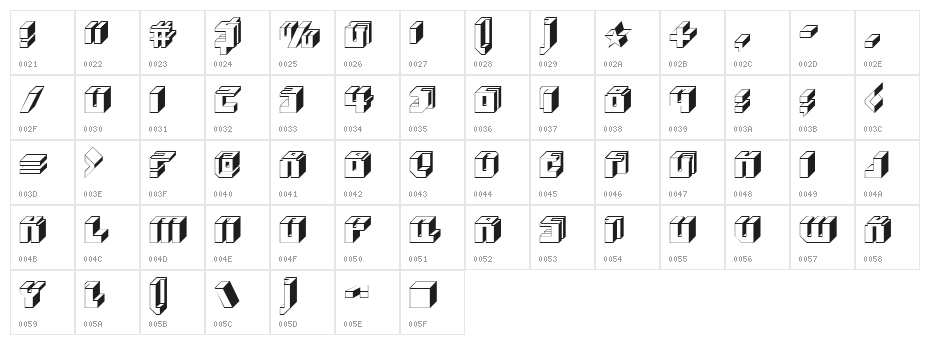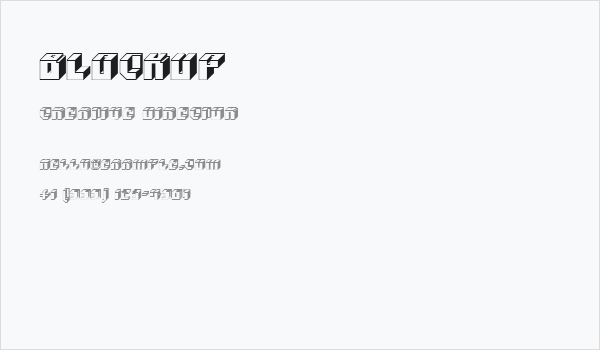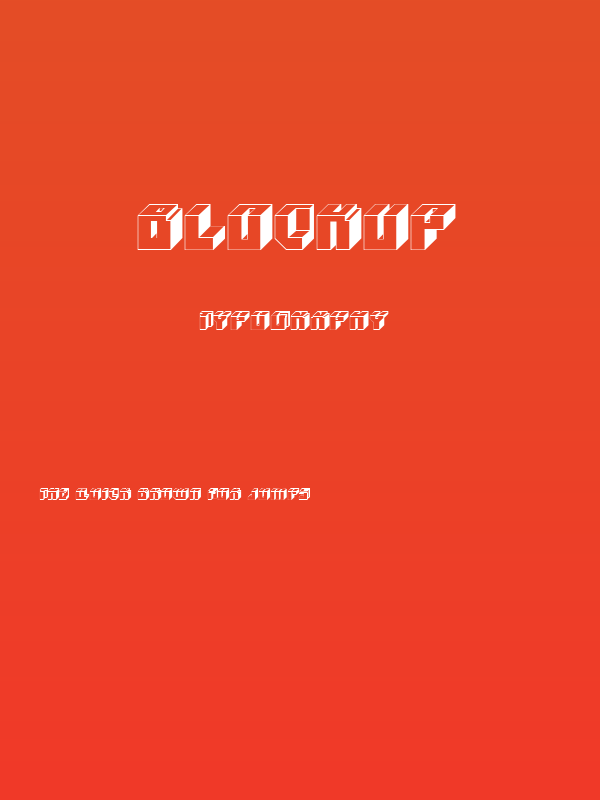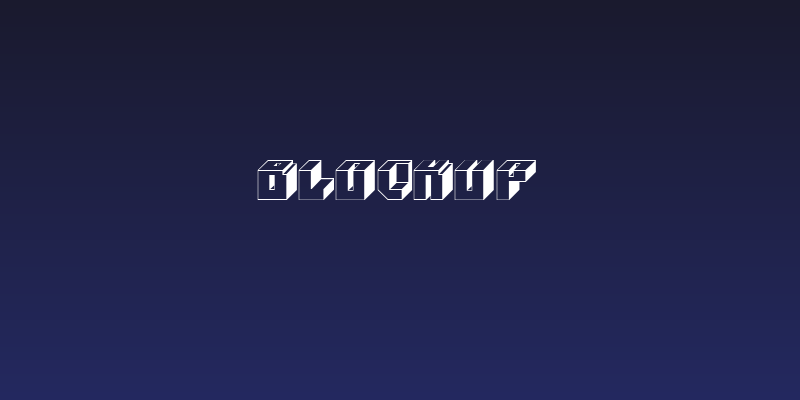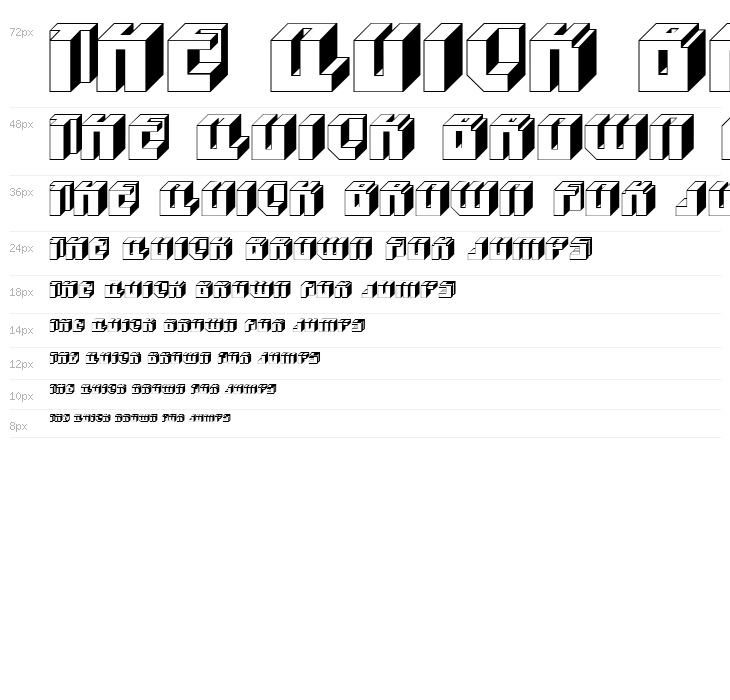
BlockUp Font
BlockUp Description
This font features a bold, three-dimensional block style that gives each character a strong, impactful presence. The letters are designed with a shadow effect, creating a sense of depth and solidity. The geometric shapes are consistent throughout, with sharp angles and clean lines that contribute to a modern and industrial aesthetic. The uppercase and lowercase letters maintain a uniform style, while the numbers and special characters are crafted to match the overall theme. This font is ideal for projects that require a striking and memorable visual impact.